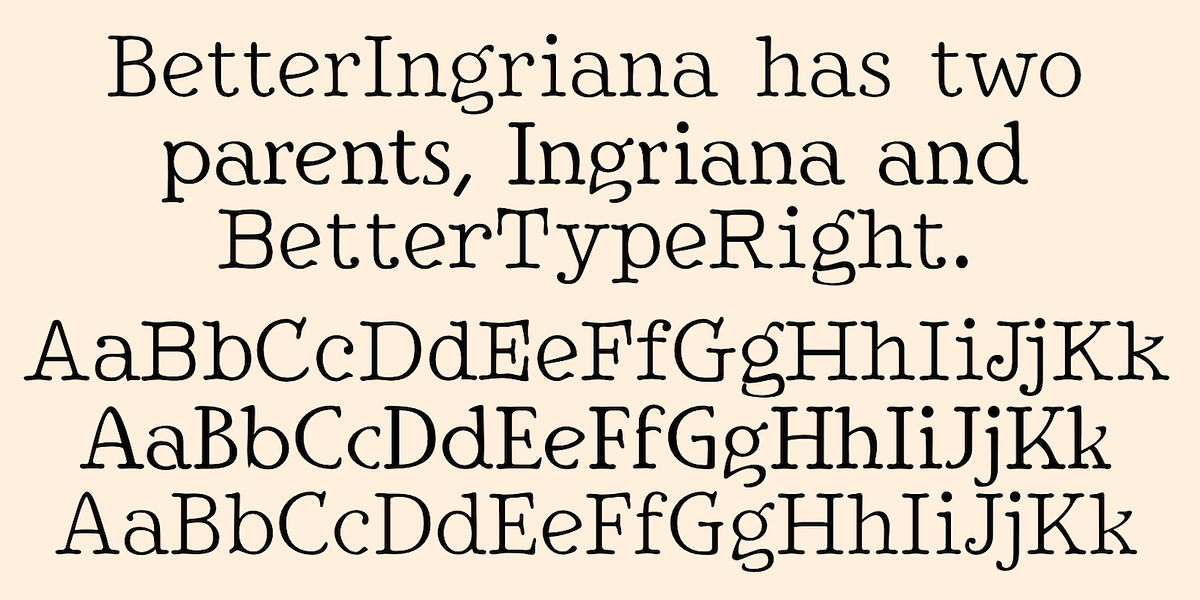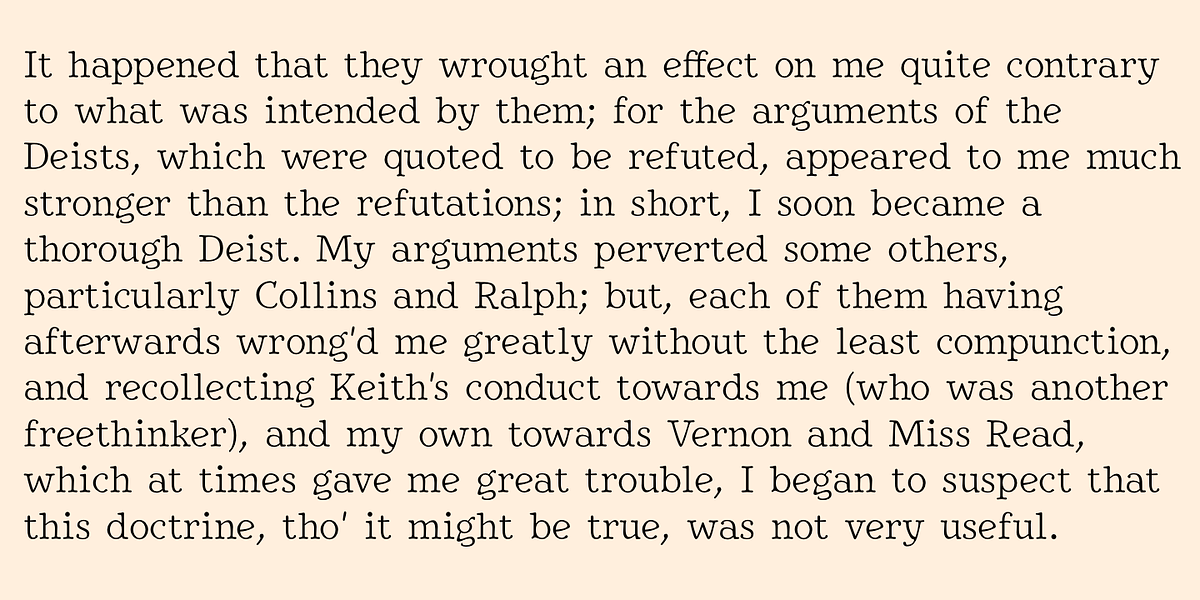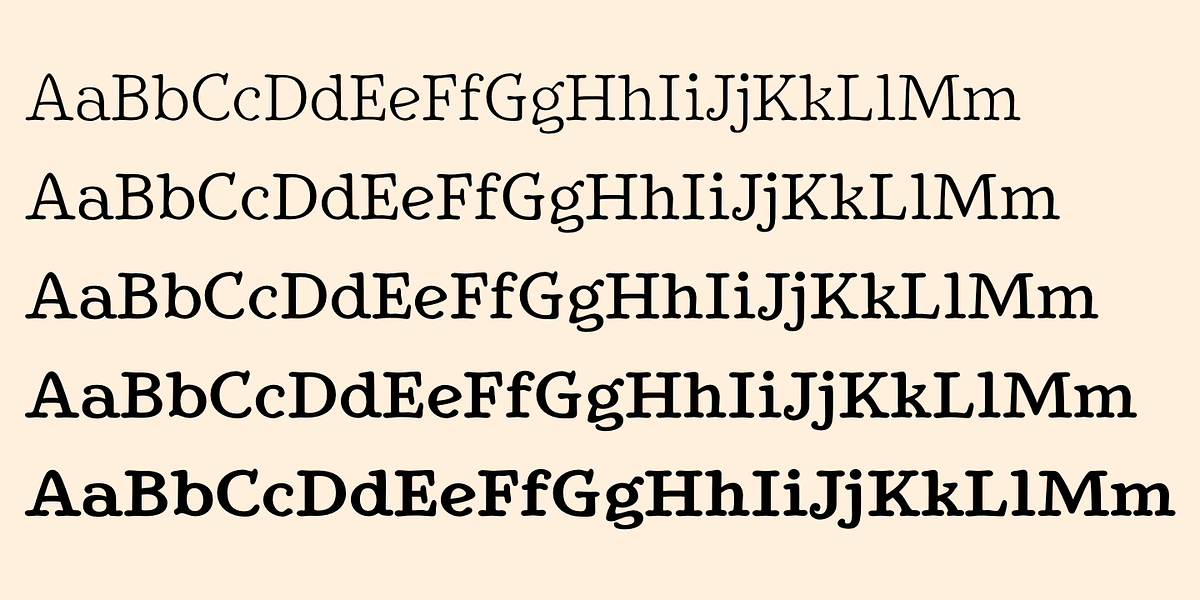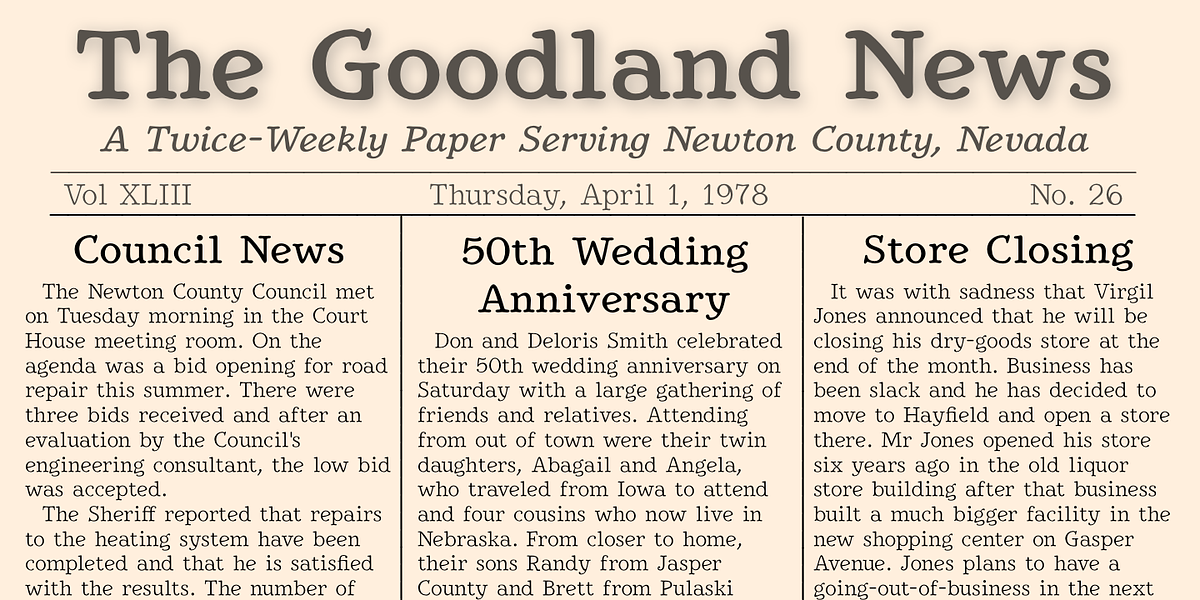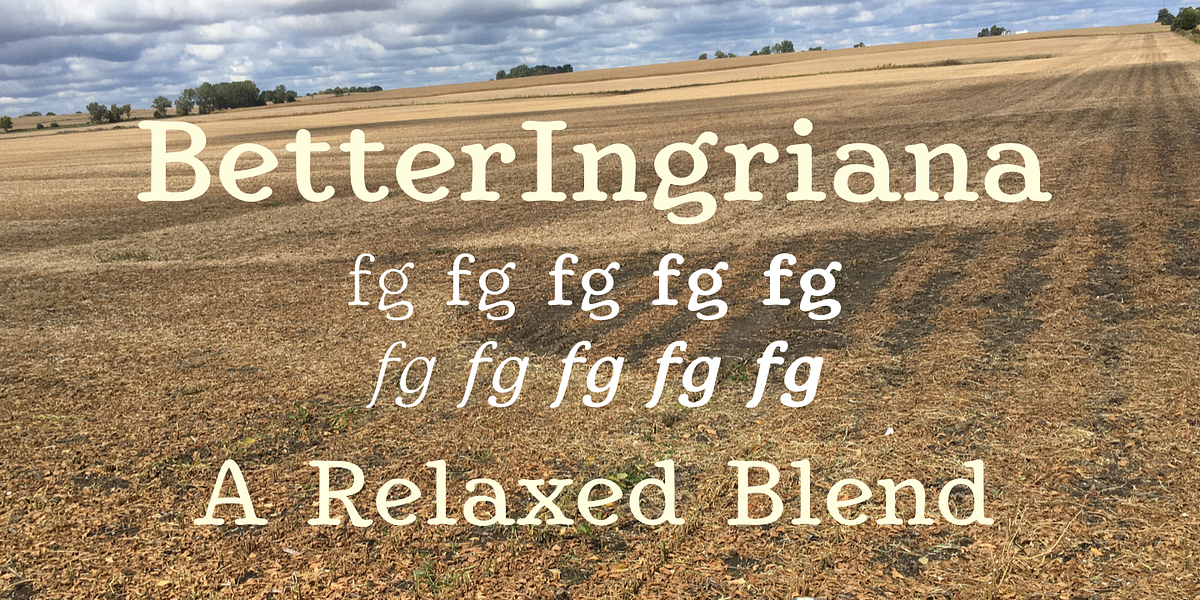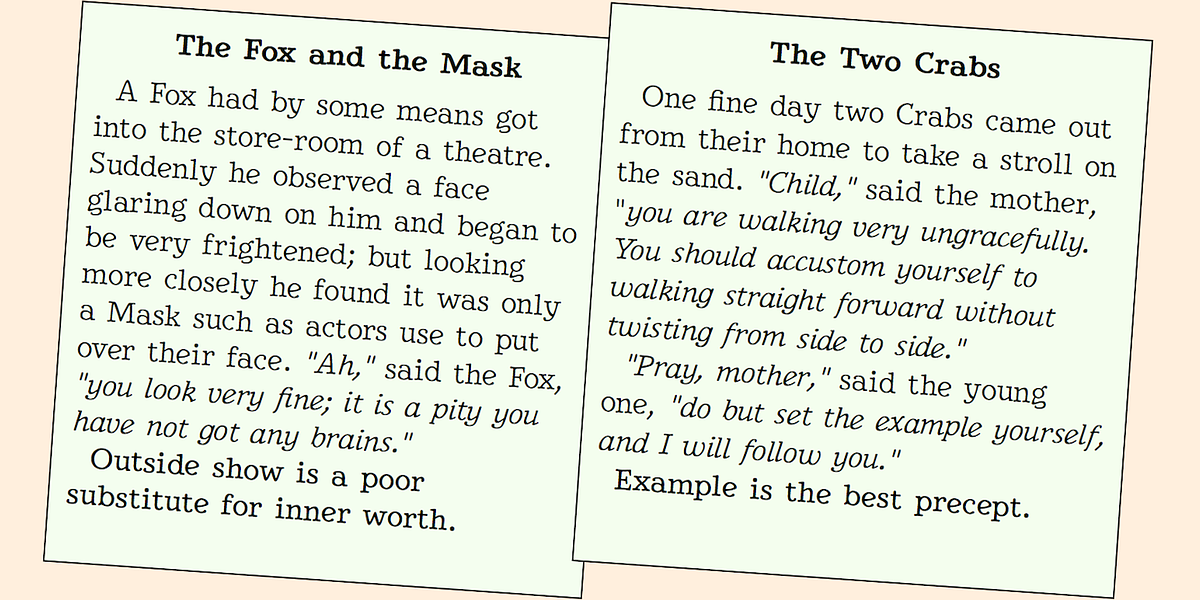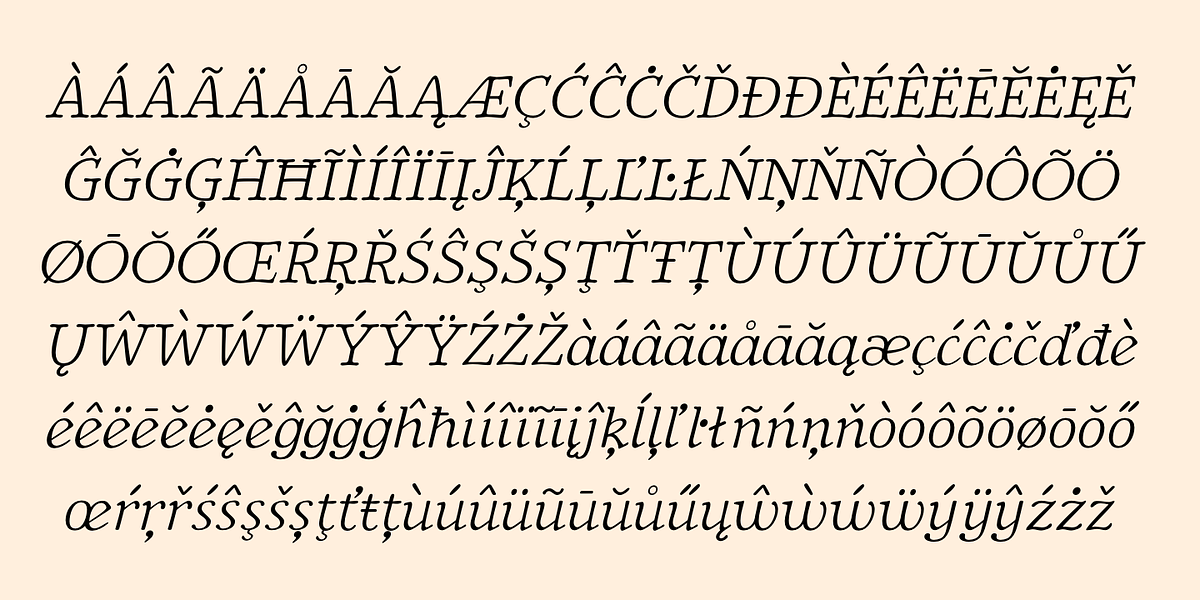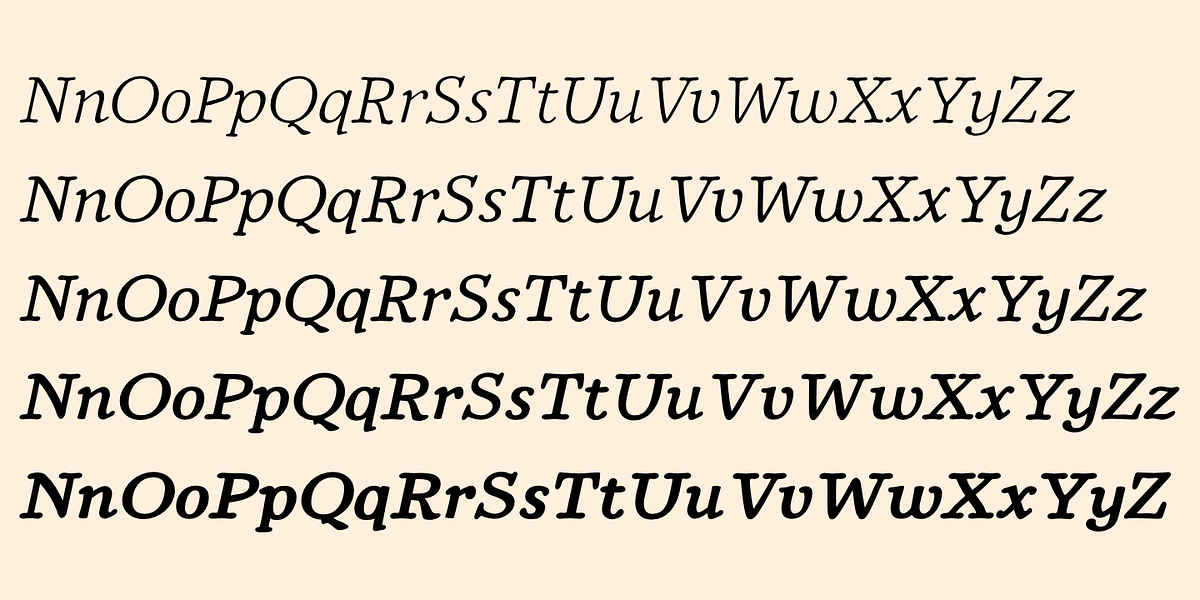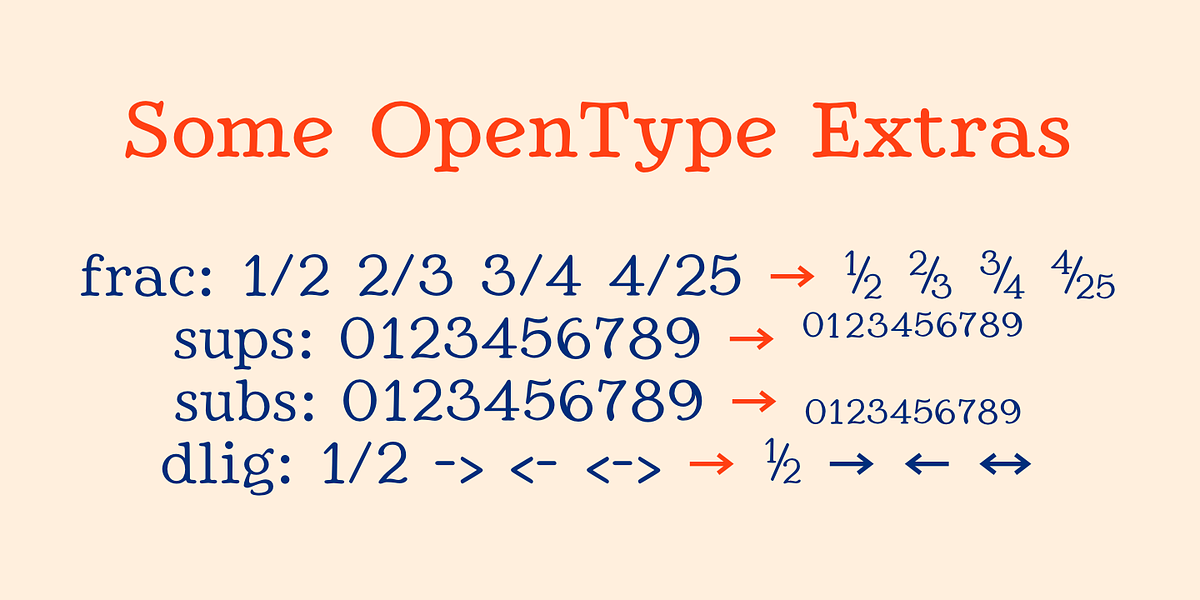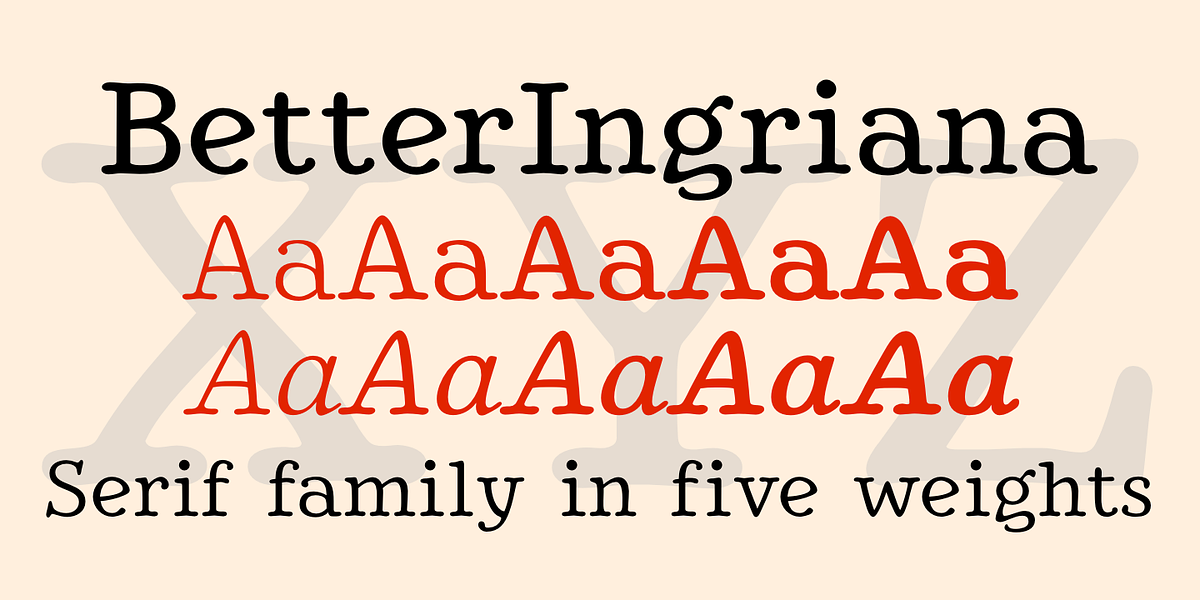
BetterIngriana
BetterIngriana is a serif font created by blending two distinct typefaces: BetterTypeRight and Ingriana. This hybrid approach resulted in a typeface with rounded serifs and high contrast. While the original creation process left some unique characteristics, updates in 2012 and 2020 ensured readability for text applications. The font family offers five weights in both Roman and italic styles.